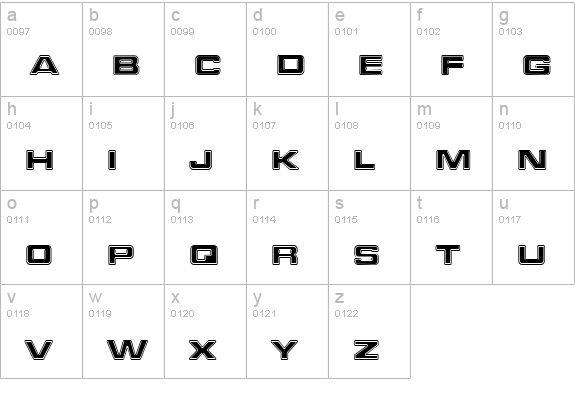
Federation Starfleet 1 Font Details
Federation Starfleet 1 font is a futuristic and sleek typeface inspired by sci-fi aesthetics. With its clean lines and bold presence, this font is perfect for conveying a sense of adventure and exploration. The sharp edges and intricate details of Federation Starfleet 1 make it stand out in any design project, whether it's for posters, logos, or digital interfaces. What's even better is that Federation Starfleet 1 font is available for free download at FontsMarket.com. This means that you can easily access this stylish font and incorporate it into your creative work without any cost. Don't miss out on the opportunity to enhance your projects with the captivating charm of Federation Starfleet 1 font. Download it today and boldly go where no design has gone before!